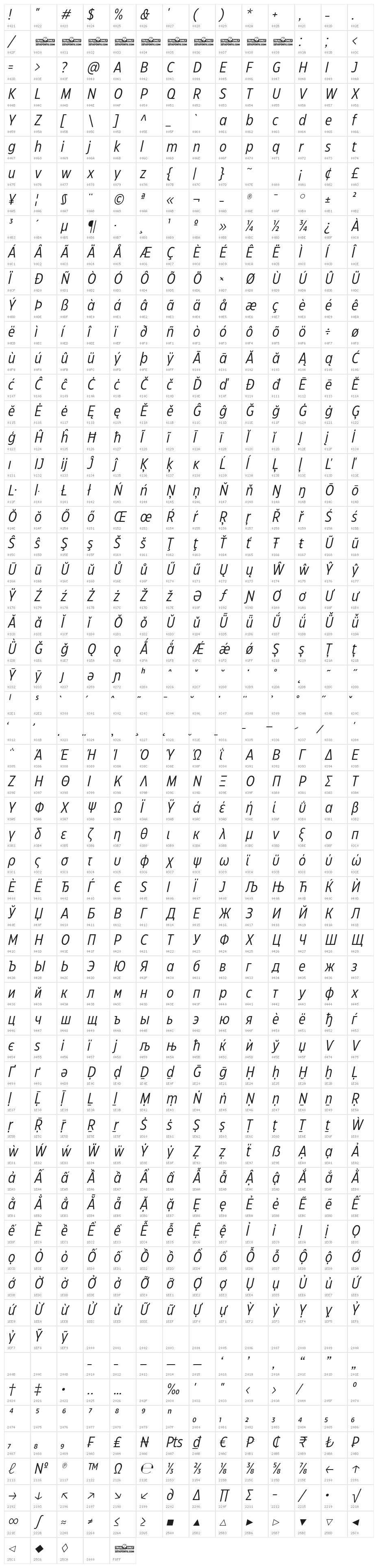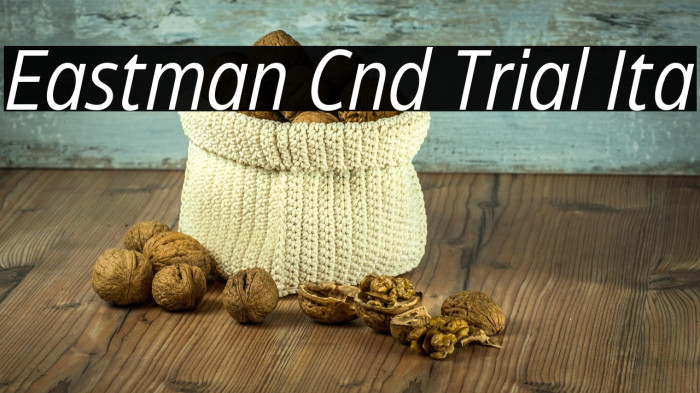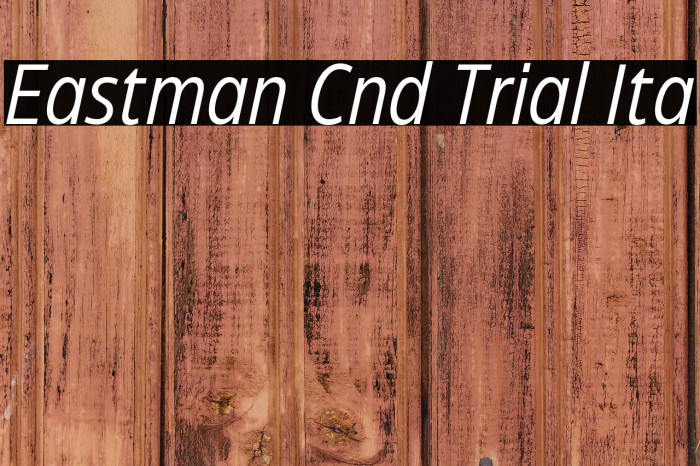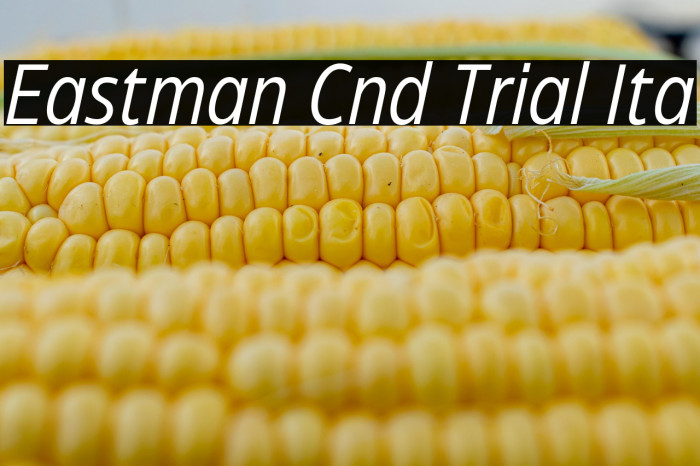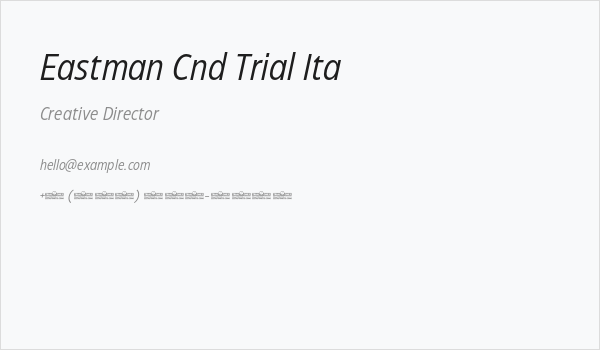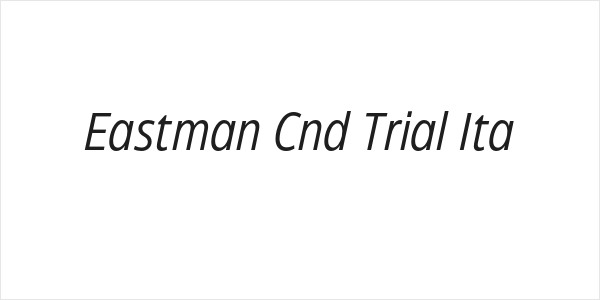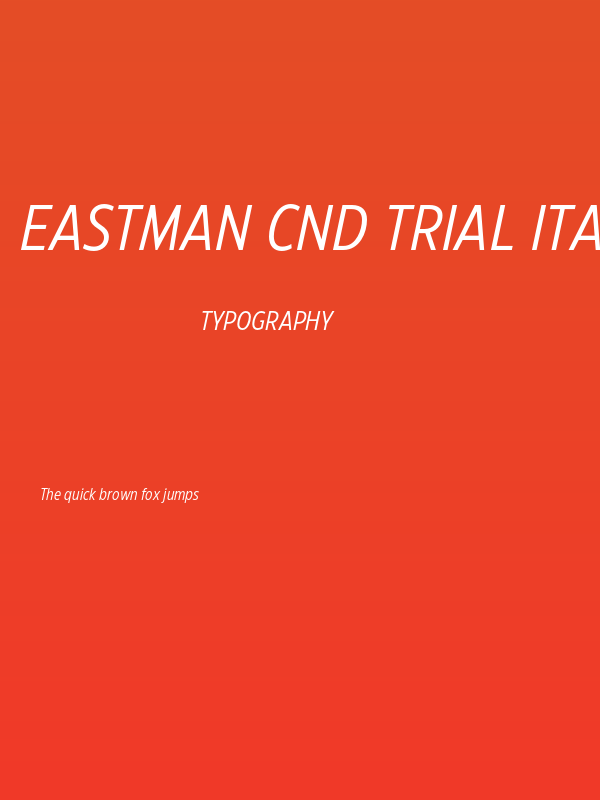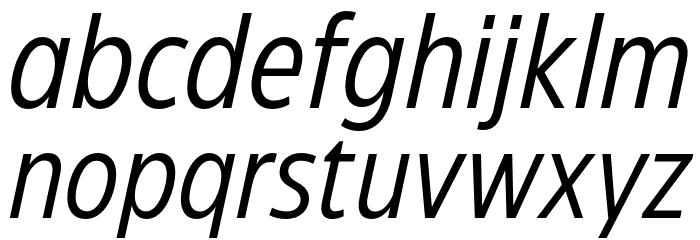
Eastman Cnd Trial Ita Font
Eastman Cnd Trial Ita Description
This font features a sleek and modern design with a slightly condensed structure. The italic style adds a dynamic and forward-leaning appearance, making it suitable for contemporary applications. The characters are well-balanced with consistent stroke widths, providing a clean and professional look. The uppercase and lowercase letters are distinct yet harmonious, while the numerals and special characters maintain the same stylistic integrity. This font is versatile, offering readability and style in equal measure.
| Proposed Projects | Ideal for branding, advertising, and editorial design where a modern and dynamic appearance is desired. |